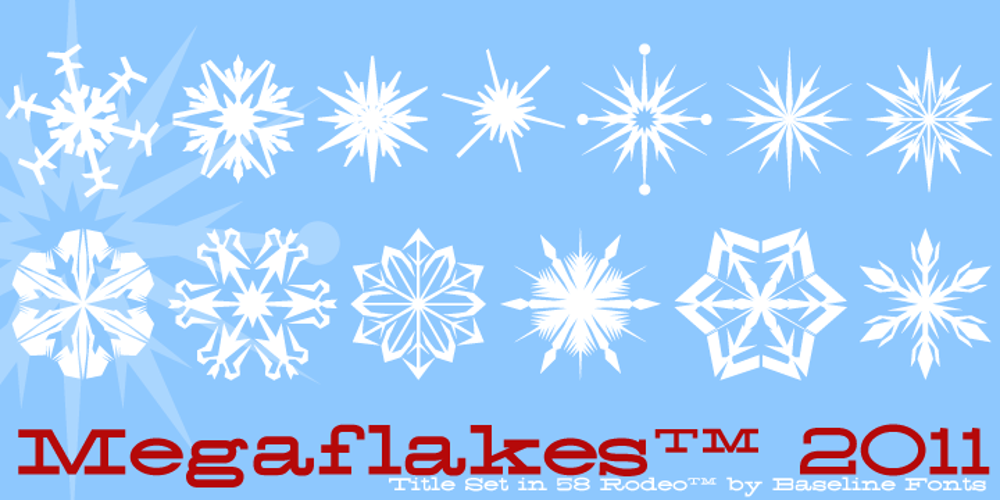
Megaflakes 2011
Megaflakes 2011 font
Megaflakes 2011 Font Family was designed by Nathan Williams and published by Baseline Fonts. Megaflakes 2011 contains 1 styles and family package options. Megaflakes™ 2011 is a geometric set. Looks like this might become a tradition for Baseline Fonts. They are terribly fun for the holidays as well as Christmas in July.